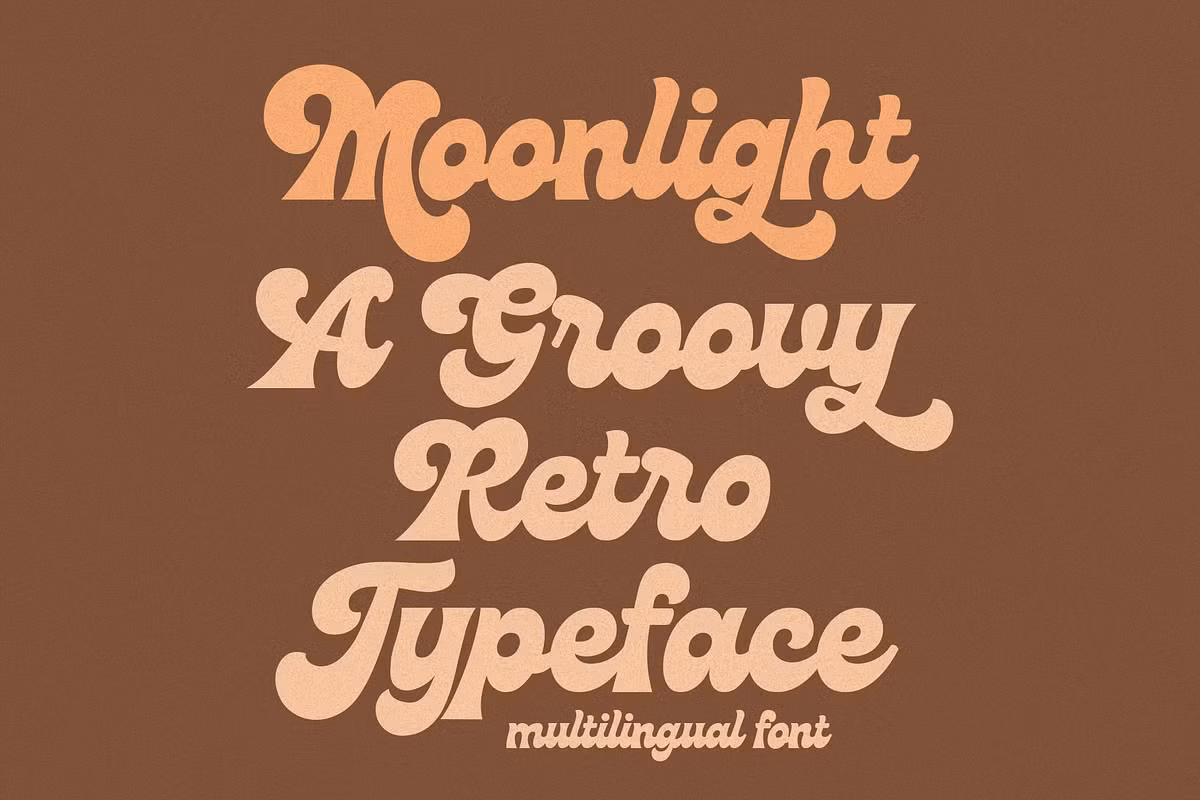
Moonlight - Groovy Disco Typeface Free Download
Moonlight – Groovy Disco Typeface Free Download
You must purchase this font for commercial use. However, you can download Moonlight – Groovy Disco Typeface Free Download for testing purposes. Moonlight is a bold, retro-inspired display font with a fun, groovy disco vibe. Perfect for projects that want to channel the vibrant energy of the '70s, this typeface features playful curves and bold letterforms, making it ideal for party invitations, music posters, fashion branding, retro logos, and social media graphics.
With its fluid, rounded shapes and distinctive retro aesthetic, Moonlight adds personality and style to your designs, capturing the essence of disco culture and fun. Whether you’re creating a funky album cover, a dynamic event flyer, or anything with a touch of retro flair, Moonlight – Groovy Disco Typeface Free Download will help you create bold, memorable typography.